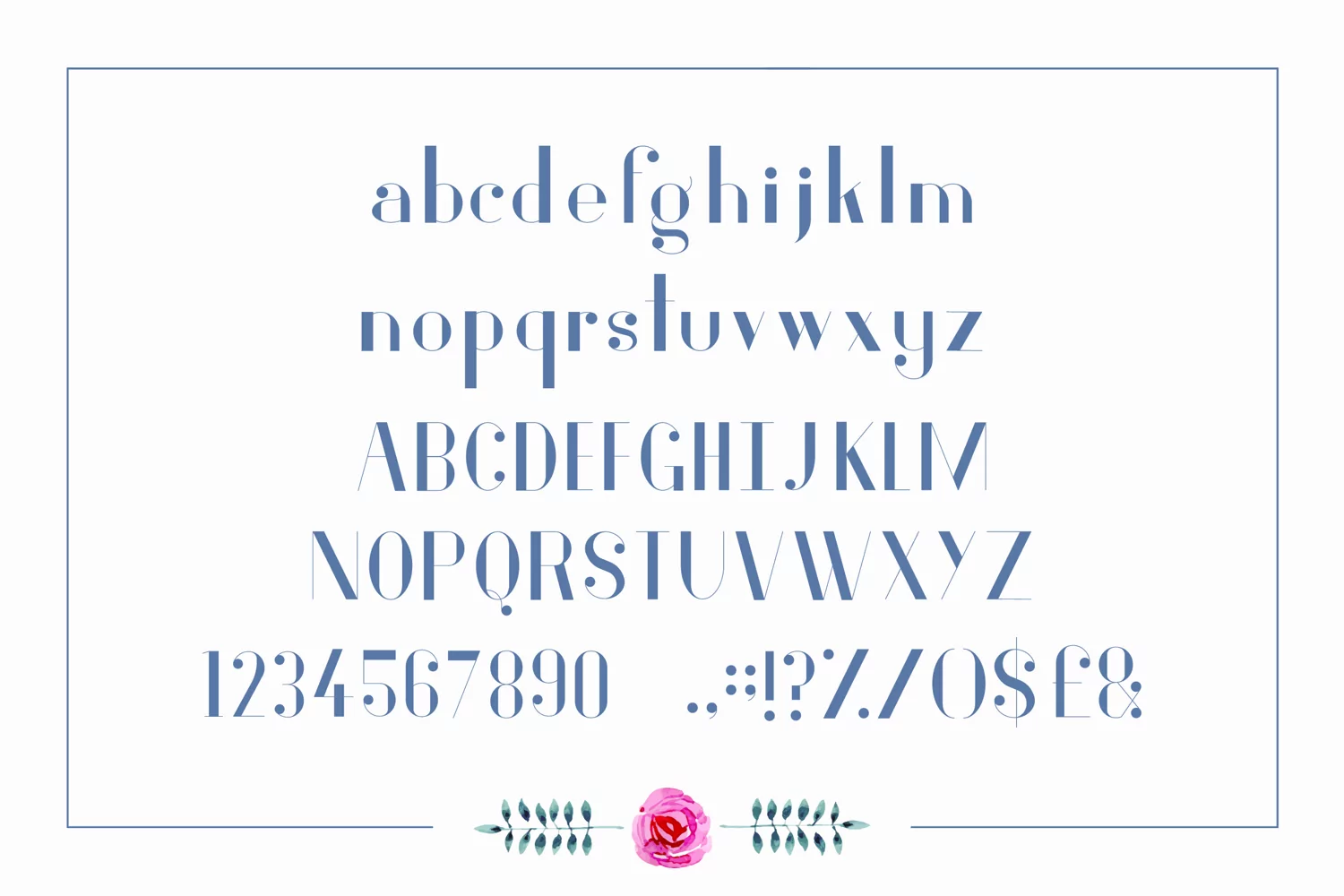
Fiore - A Quaint & Elegant Typeface Font
Fiore is a quaint elegant typeface that works great for wedding stationary and monogram logos. Pair Fiore with a simple sans serif font for a stunning combination! With Fiore, you receive a full set up both uppercase and lowercase characters, along with punctuation and numerals.